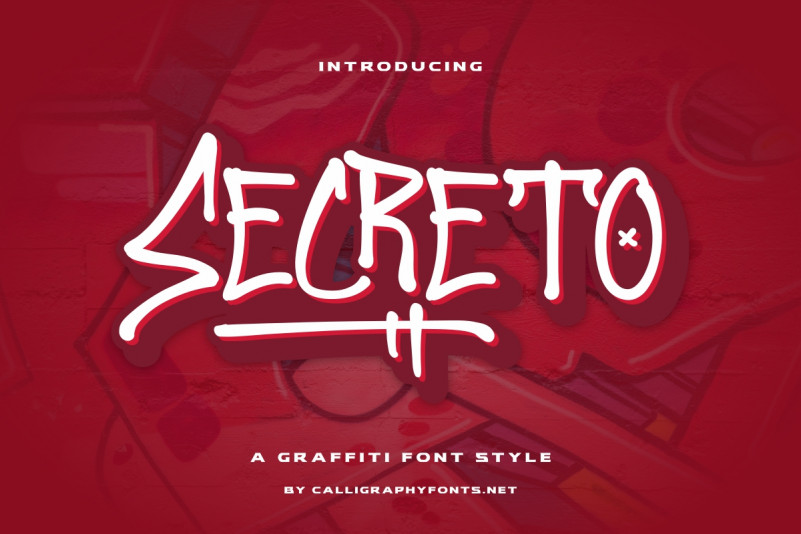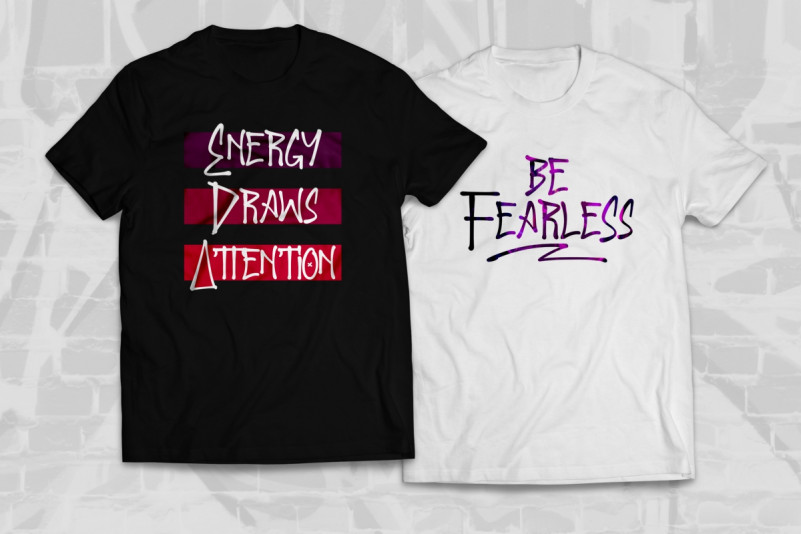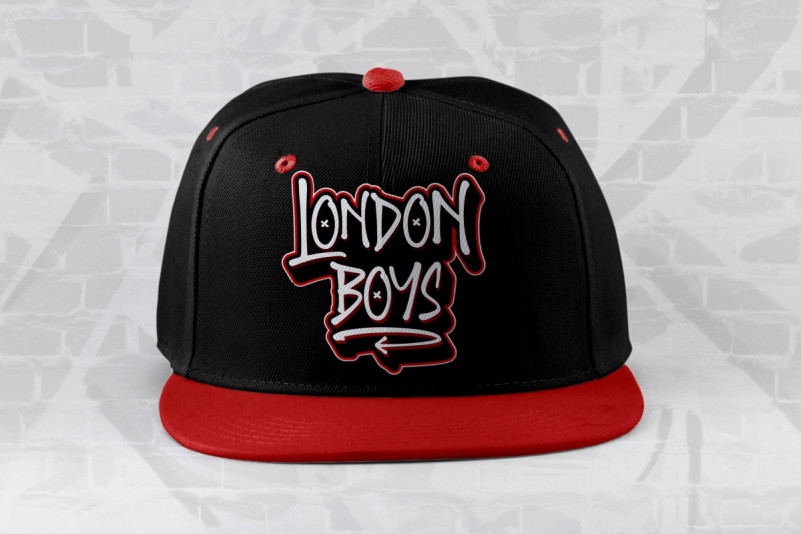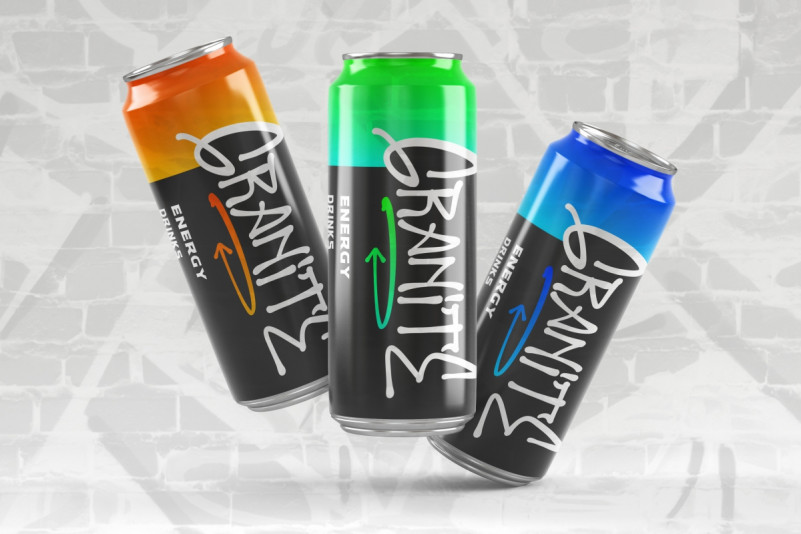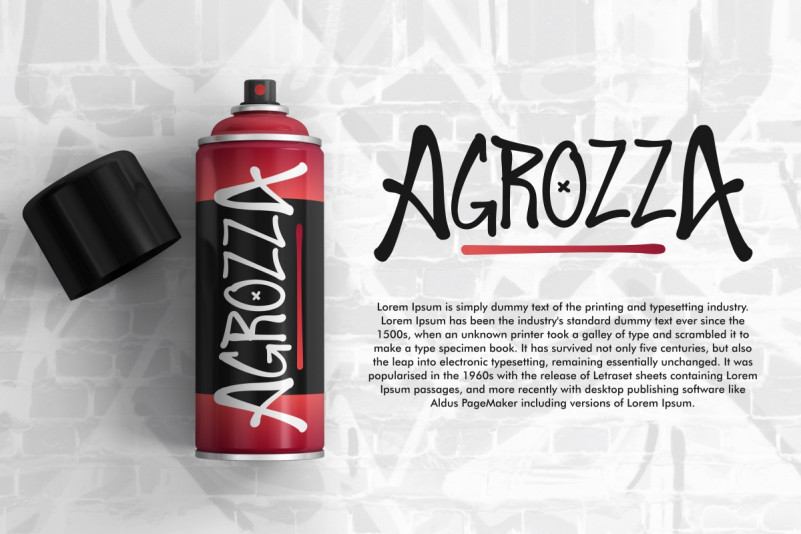
Secreto Font
Secreto Display Font
This is a graffiti Handwriting font inspired from street graffiti with a unique style. The font will be awesome for brands, packaging, invitation, games. etc. Secreto Font will suit many industries and categories related to clothing, motor, bike, race, games etc.